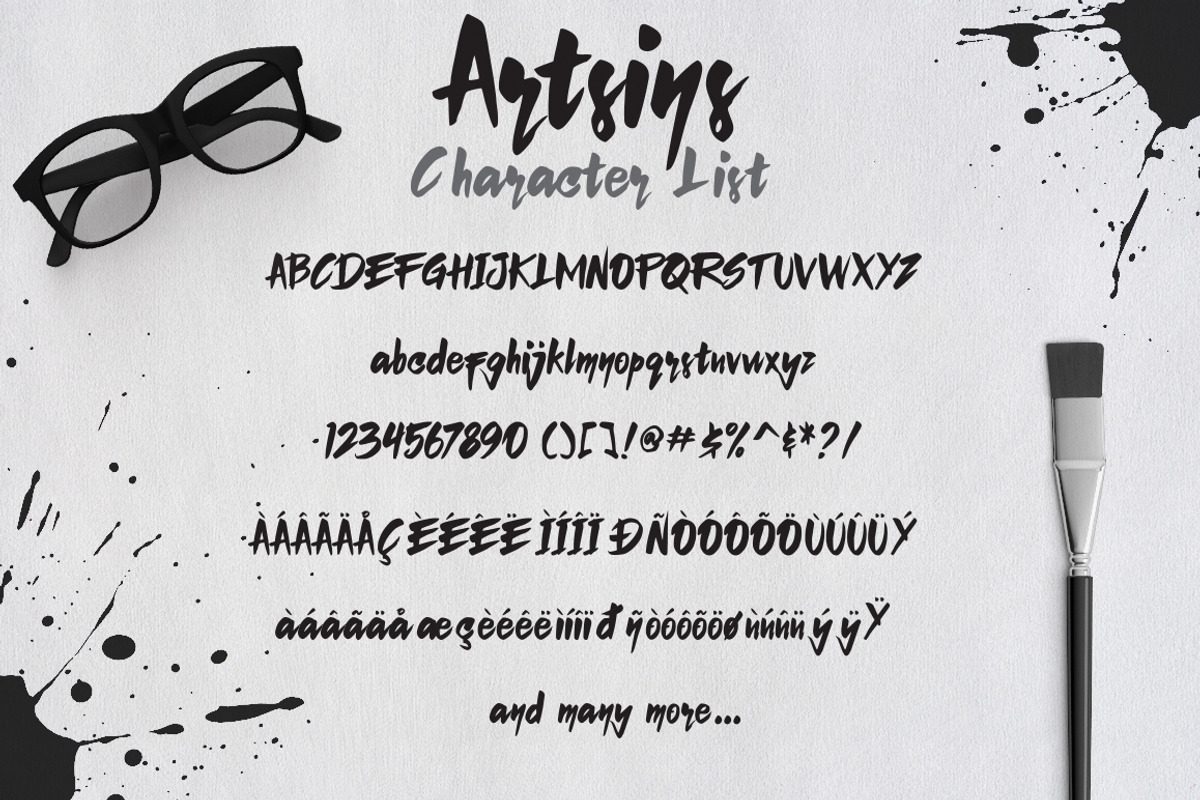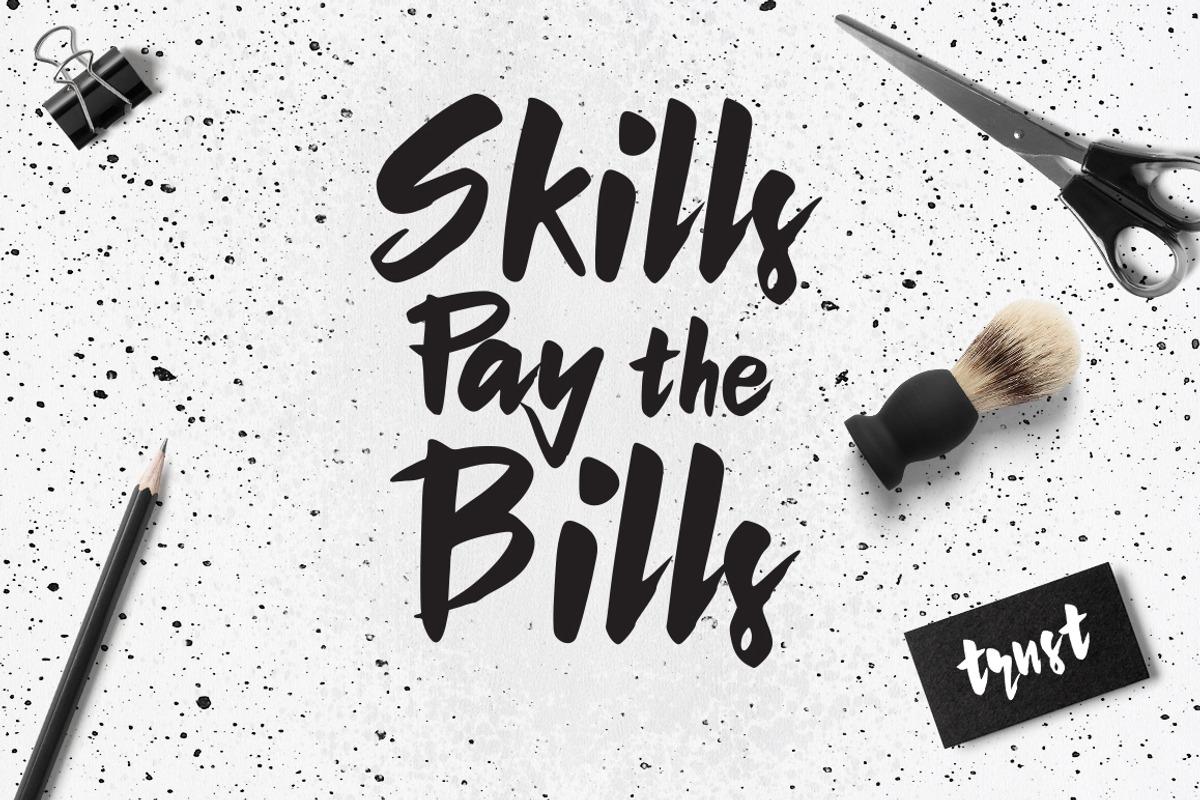
Sale ! 50% off Artsins Typeface
Sale ! 50% off Artsins Typeface by fopifopi is a font selected for branding, posters, packaging, typography.
Why Sale ! 50% off Artsins Typeface is worth a look
Sale ! 50% off Artsins Typeface by fopifopi fits naturally into Branding, posters, packaging, typography.